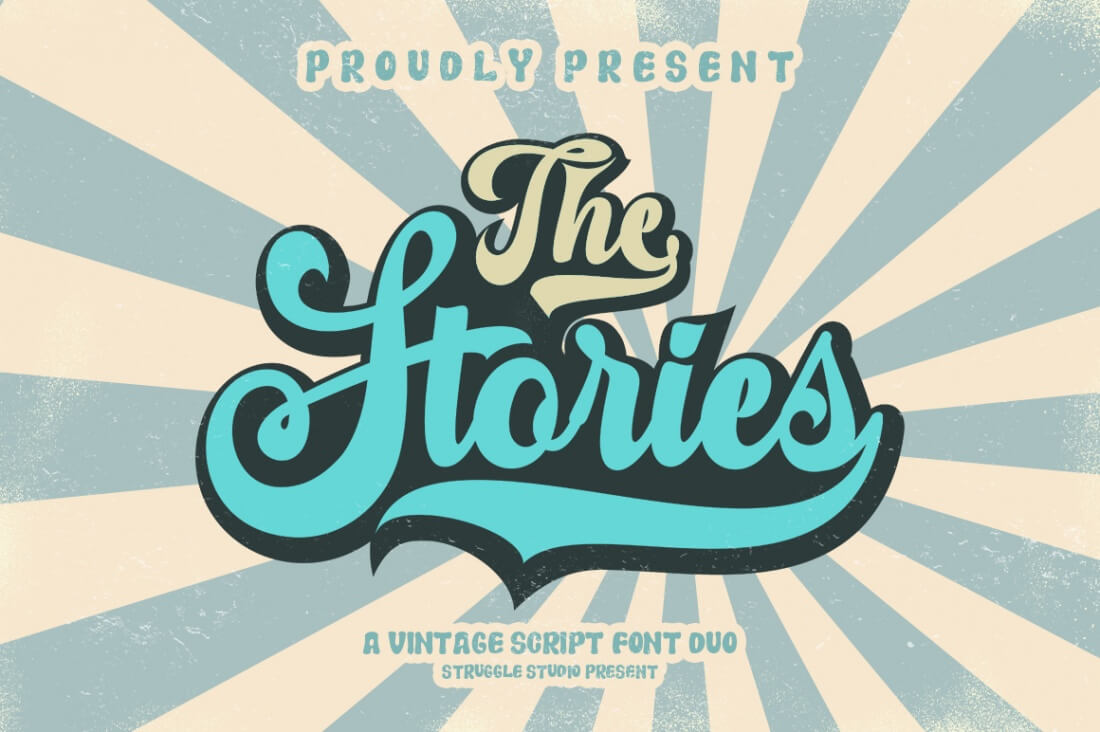
The Nature Butterfly Font Bundle is an excellent choice for those tackling unconventional projects. Mighty Deals brings you this exciting selection of 17 fonts via 8 typefaces.
Show your playful side with Kids Scratch and Farming in Jungle. Add mystery and sophistication with Rose Madina. Bring romance and flair to the fore with Butterfly and Nature, while taking a trip down memory lane with The Stories vintage script. Ghoppters and Angel Boos make designs feel more personal.
- 8 typefaces: Nature, Rose Madina, Butterfly, The Stories, Farming in Jungle, Kids Scratch, Angel Boos, and Ghoppters.
- Mix of style variations, including Bold, Slant, Display, Brush, as well as extras included.
- OpenType features included.